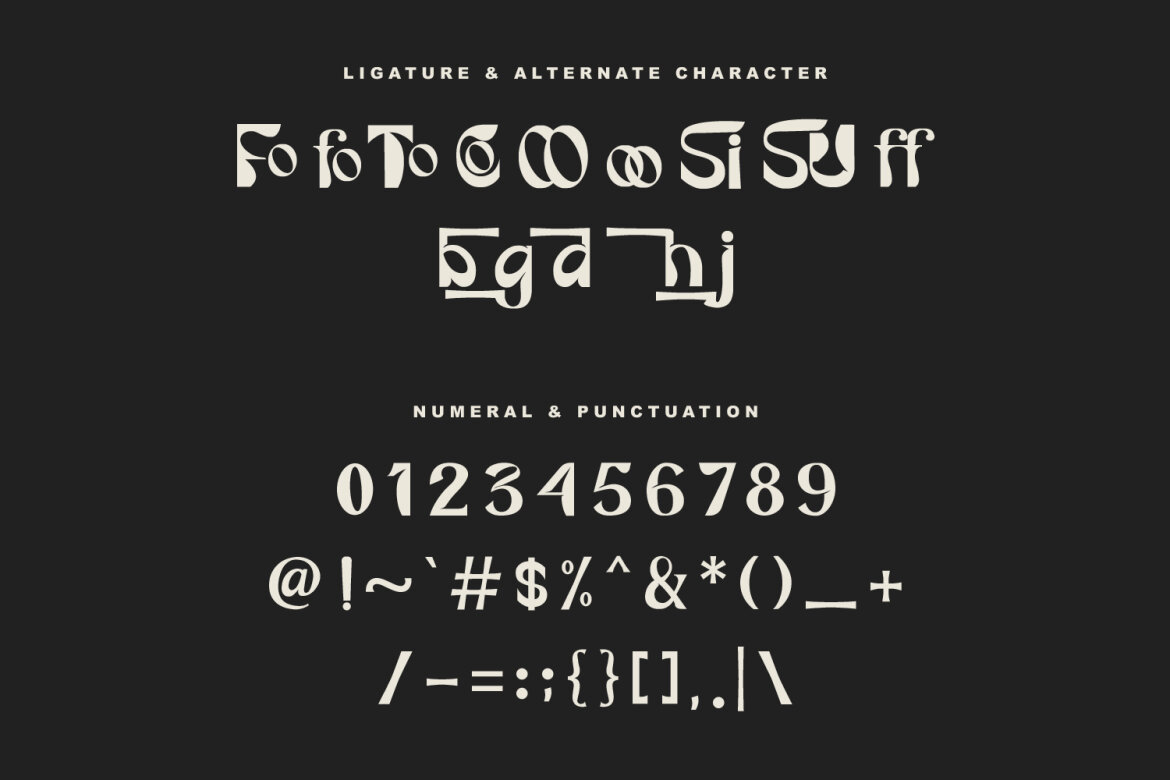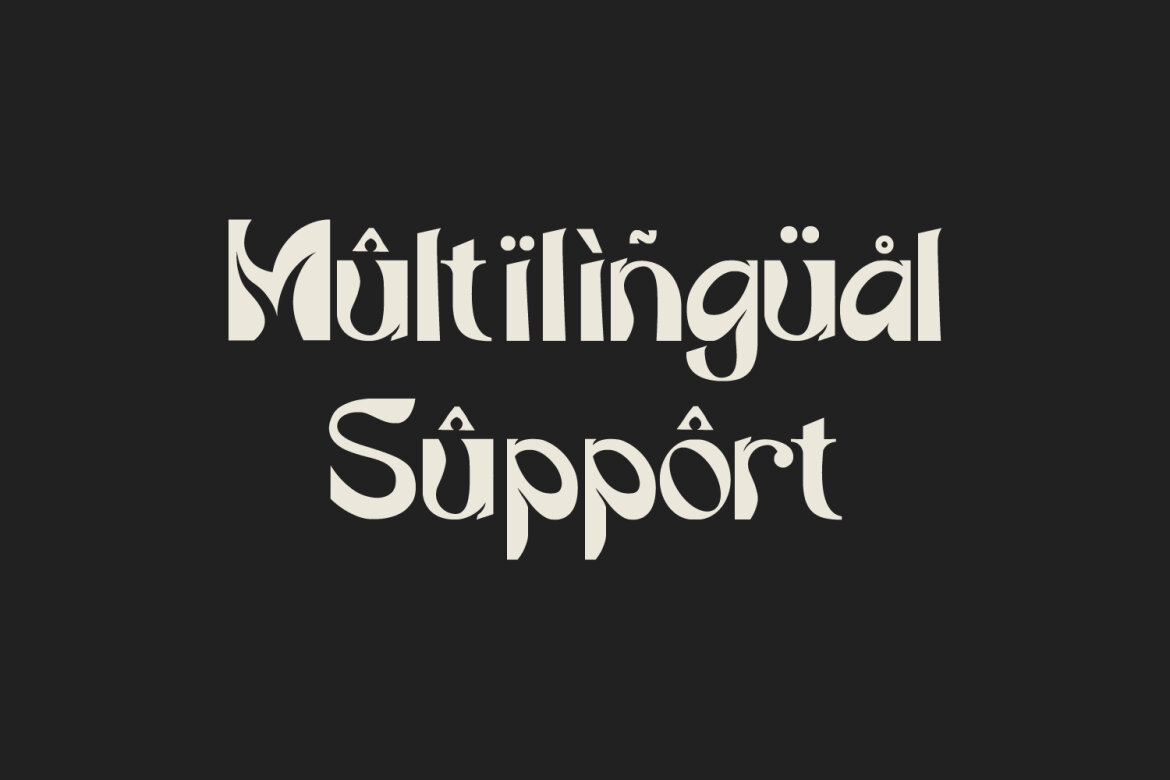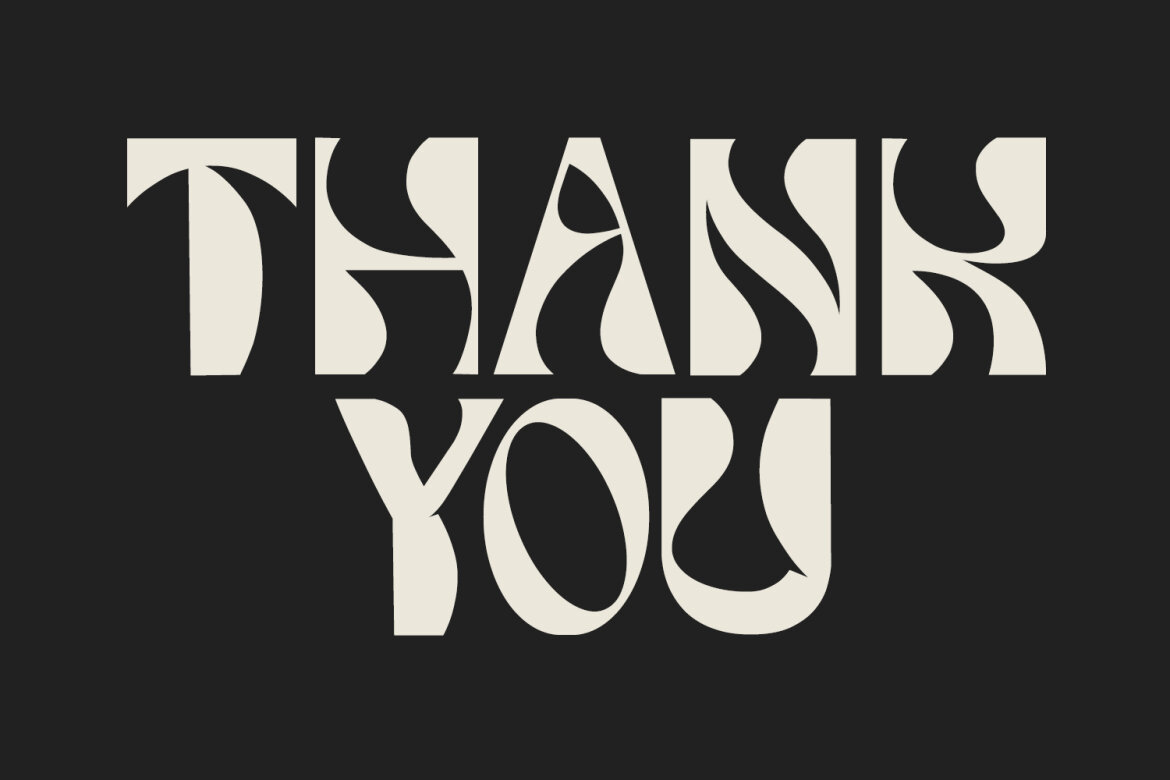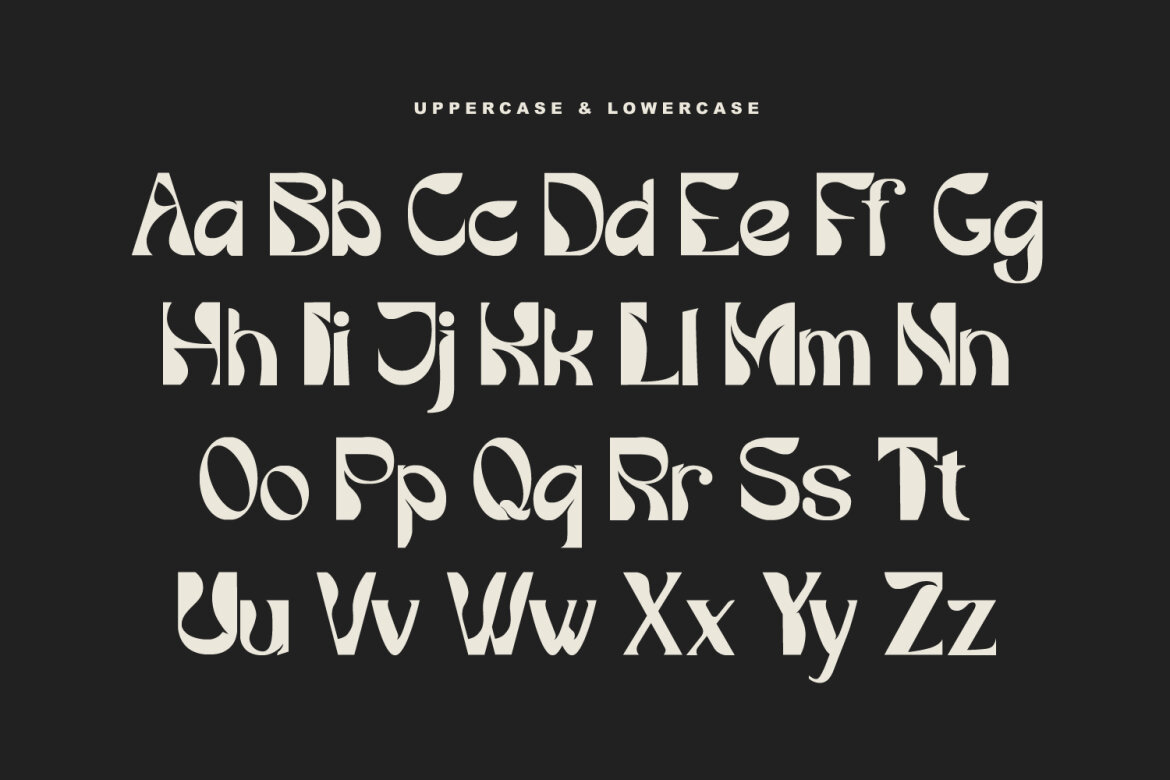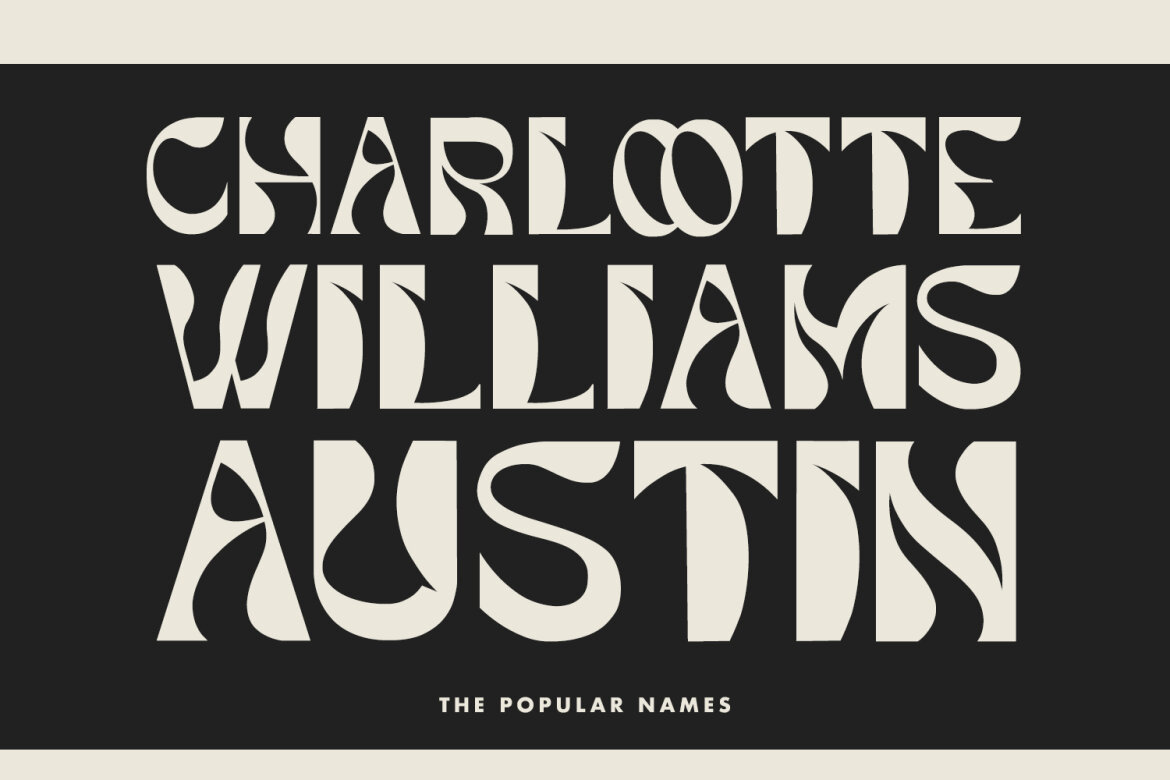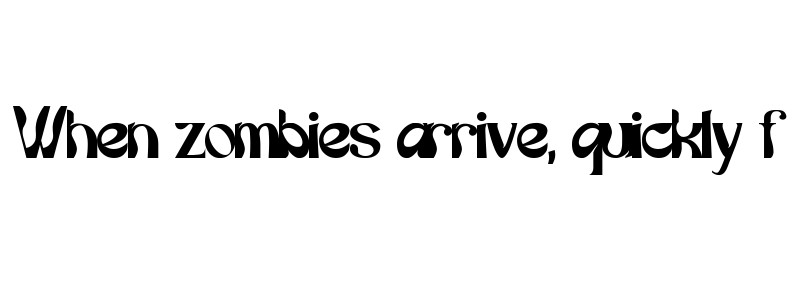
Rimeon Astonia FREE Renaissance Font
Rimeon Astonia Regular
Rimeon Astonia modern renaissance font. With bold stroke, fun character with a bit of ligatures. To give you an extra creative work. Rimeon Astonia modern renaissance font support multilingual more than 100+ language. This font is good for logo design, Social media, Movie Titles, Books Titles, a short text even a long text letter and good for your secondary text font with script. Make a stunning work with Rimeon Astonia modern renaissance font.